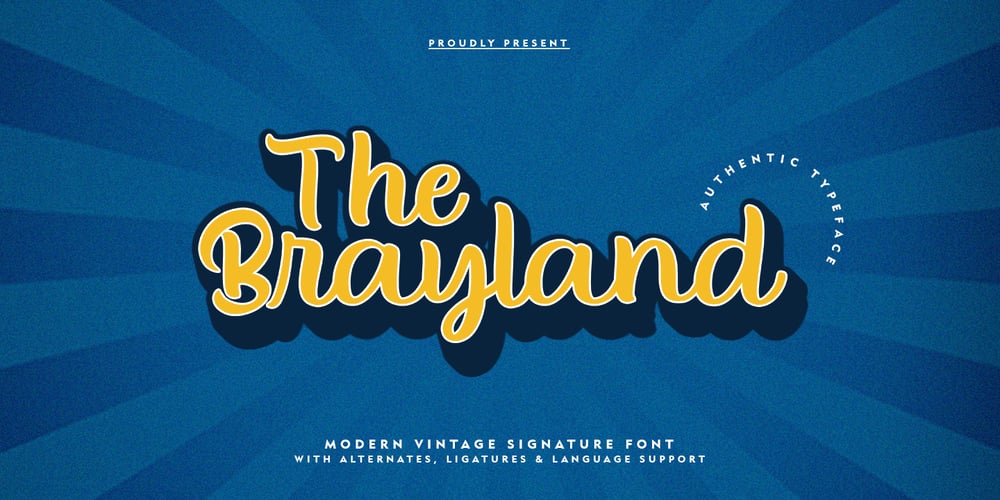
The Brayland Font Family was designed by Khaled and published by Akifatype. The Brayland contains 1 styles and family package options. The Brayland is a soft and sweet script font. It has a casual and elegant touch and it can be used for various purposes such as logos, wedding invitations, headings, t-shirts, letterheads, signage, labels, news, posters, badges and more.The Brayland is PUA encoded which means you can access all of the glyphs and swashes with ease!